Fino Sans speaks for Billie Eilish in concert films
Fino Sans stars in the Billie Eilish concert experience, Happier than ever: a love letter to Los Angeles, and the making-of.
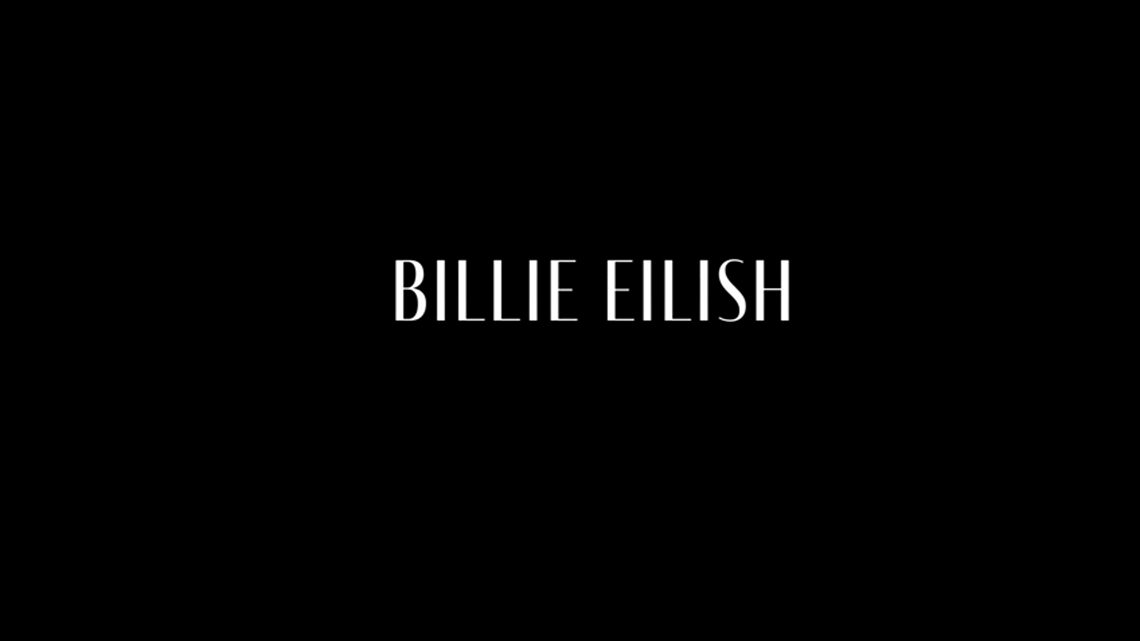
Fino Sans has been popping up lately in film, music, and magazines. Most recently it was used in “Happier than ever: a love letter to Los Angeles”, a concert film starring singer-songwriter Billie Eilish and released exclusively to Disney+. It features performances of all 16 tracks from Eilish’s second studio album, “Happier Than Ever” (2021), directed by Robert Rodriguez and Patrick Osborne. Fino Sans was used in the opening and closing credits and titles during the film. To maintain consistency, Fino Sans was also used in the additional half-hour making-of.
Designed by Ermin Međedović, Fino Sans is a contemporary Didone titling family that scales beyond the world of looks by tapping into archetypes, completed by stencil and serif companions. Fino’s all-caps alphabet makes way for alternate versions of characters, ligatures galore, and a cohesive sense of style. Check out Fino’s fashionability and set your next couture subject with all its goodies.